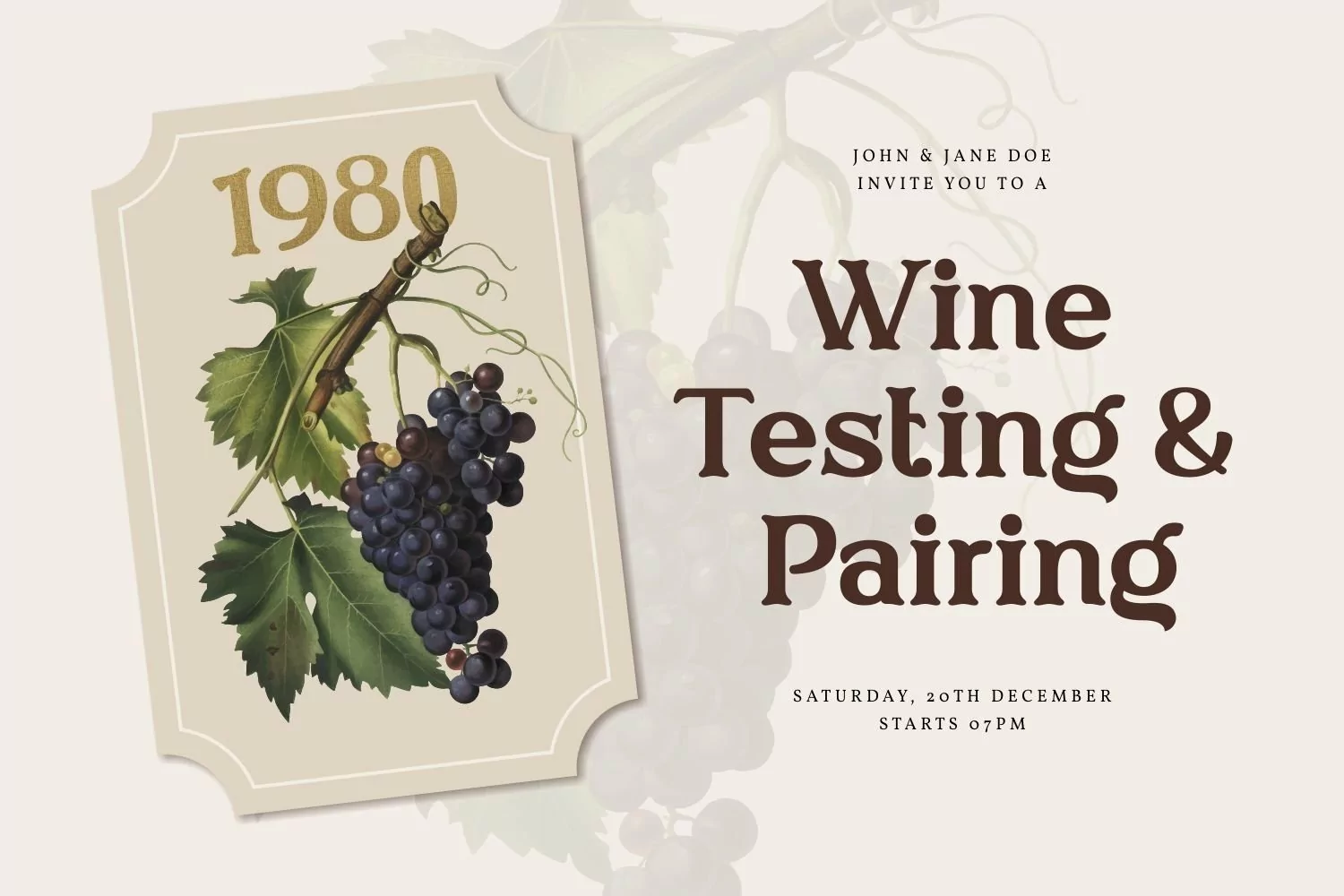
Bull Ranch is an authentic serif display come with vintage themes. This font have smooth corner shape characters. It matches applies in some designs such as the logotype, brand, packaging, quotes, poster, t-shirt, badge and more custom design. The features uppercase, lowercase, numeral, punctuation & symbol, multilingual support, PUA encoded (fully accessible without additional design software).